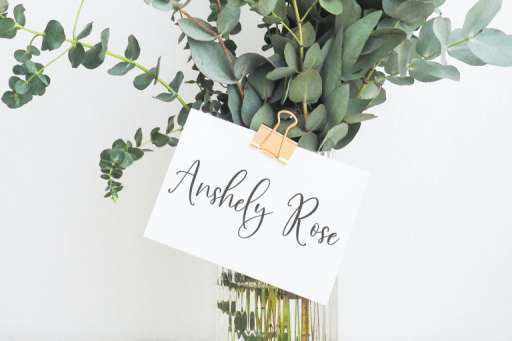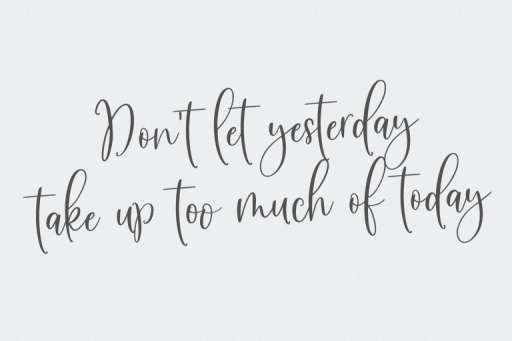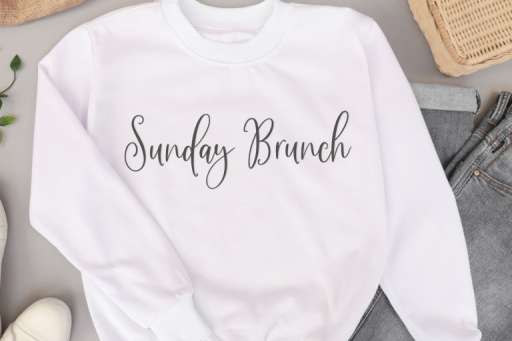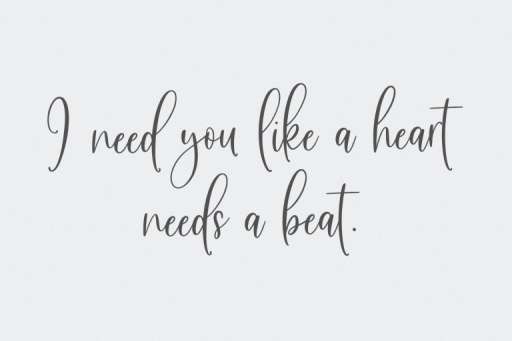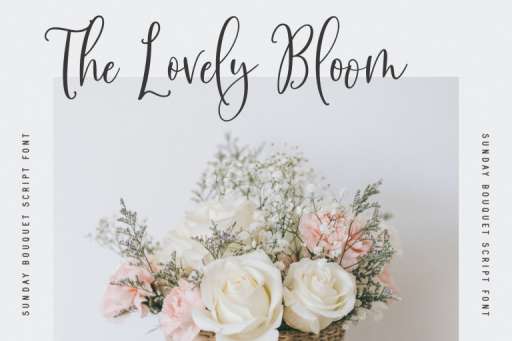
Sunday Bouquet - Script Business Font Jimtype Studio
Sunday Bouquet Font
Sunday Bouquet – Magazine Font
Sunday Bouquet is a handwritten script font, It is perfect for branding, books, heading, webs, cards, wedding invitations, quotes, watermark,s and more.